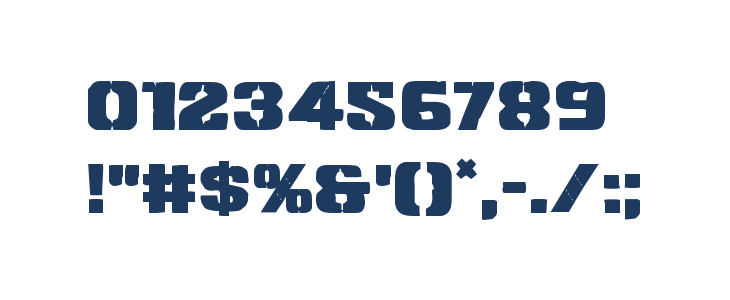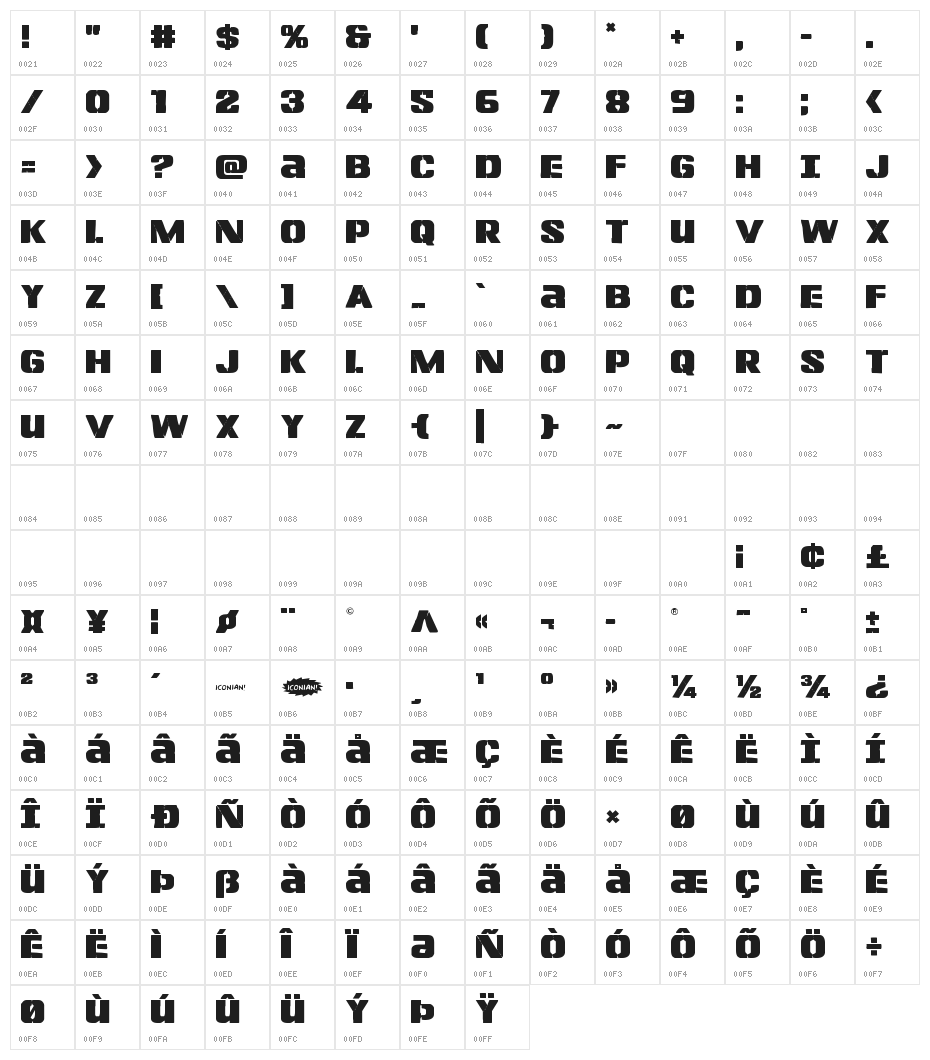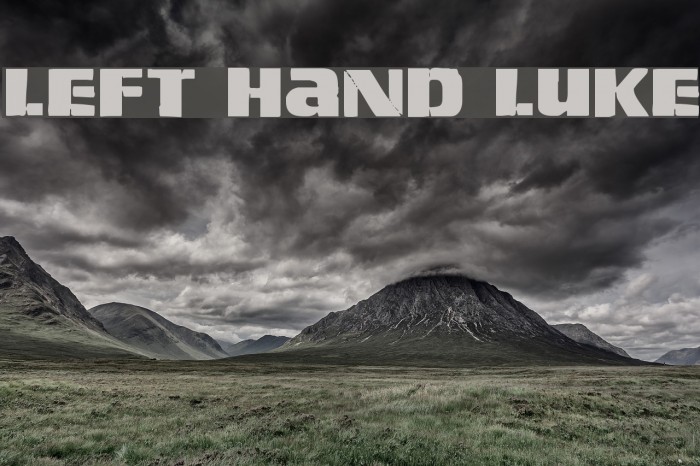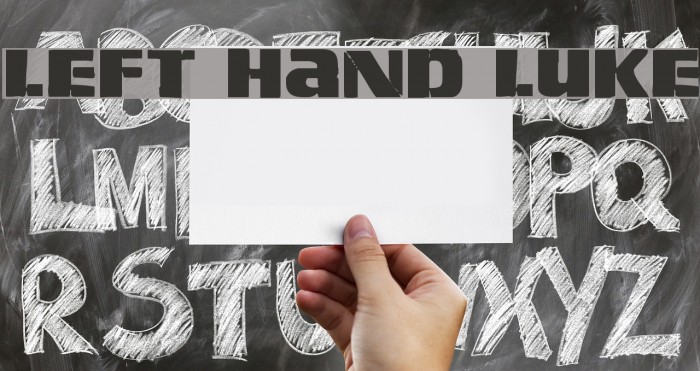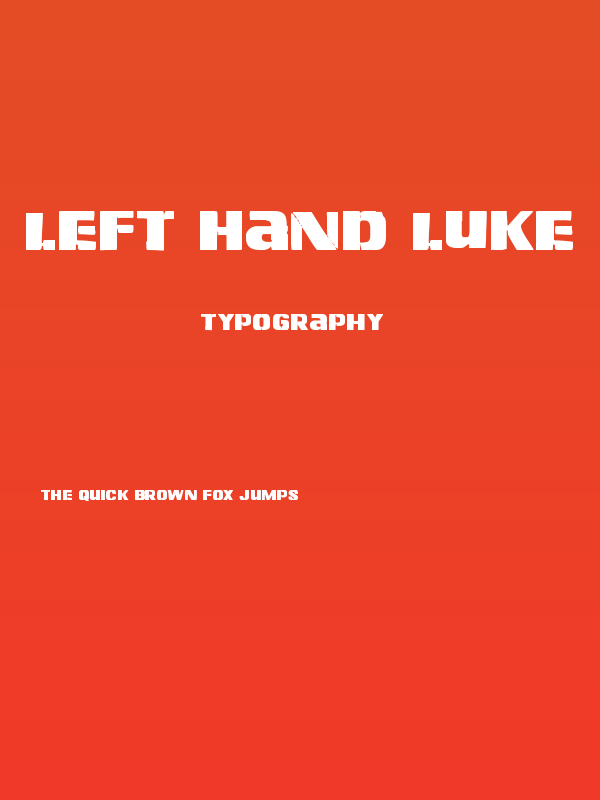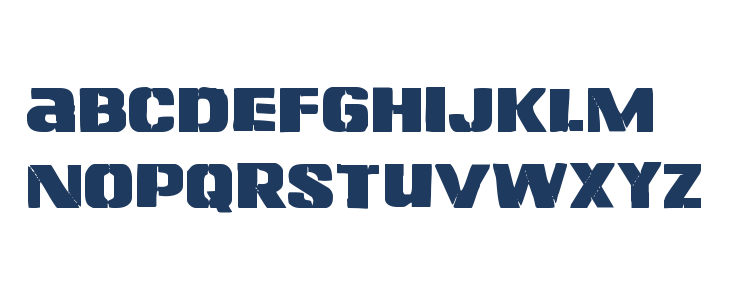
Left Hand Luke Font
Left Hand Luke Description
This font features a bold, rugged design with a distressed, stencil-like appearance. The characters are blocky and robust, with a unique cut-out style that gives them a worn, industrial look. The uppercase and lowercase letters maintain a consistent weight, contributing to a uniform aesthetic. The numerals and special characters follow the same design principles, ensuring a cohesive look across all glyphs. This font's distinctive style makes it ideal for projects that require a bold, eye-catching typeface with a gritty, urban feel.
| Proposed Projects | Ideal for posters, album covers, branding for industrial or urban-themed projects, and any design needing a bold, gritty typeface. |